Ready to get a movie on? Start creating for the big and small screen with our pick of the best templates inspired by cinema and TV show genres.
From the eerie, ominous tones of a true crime documentary to the futuristic blue glow of a sci-fi film, all successful movies and TV shows tend to follow a formula. Why? Because if it ain’t broke, don’t fix it! By recreating the recognizable tropes of movie genres and TV shows, you can provide a shorthand for your audience and make your movie poster design, movie trailer or TV ad accessible and recognizable. It’s all in the little details!
The right graphic design style, font or music track can immediately convey a movie or TV show’s genre or subtext – telling us to expect an action-packed blockbuster, a family cartoon comedy or even a period drama or modern romance. Netflix offers some of the best examples of genre branding. Each Netflix created show has its own unique look and feel, but heavily borrows from the genre that it aspires to, from The Crown (period drama) to Chilling Adventures of Sabrina (spooktastic teen comedy).
If you’re unsure where to start, one way to fake it ‘til you make it is to tap into current movie and TV trends – such as retro fonts (think Stranger Things and Freaks and Geeks), eerie true-crime video templates (emulating true-crime docos like Tiger King and Making a Murderer) or pop-culture inspired graphics templates that are aligned to what’s trending right now.
Whether you’re an aspiring filmmaker, a TV junkie, or simply want to use TV and Movie trends as inspiration for your next poster or social media content, finding the right design style for your project can help you create trendy, eye-catching visuals to attract an audience.
Ready to get a movie on? As we head into Awards Season, we take a look at the best blockbuster design templates, cinematic fonts and movie poster designs on Envato Elements, inspired by true crime, horror, sci-fi and more.
1. True Crime
From series like 2020 phenomenon Tiger King to Making a Murderer and even podcasts like Serial – true crime has absolutely exploded over the last five years. The general public has become obsessed with delving inside the minds of psychopaths and serial killers – a fascination fuelled by the constant stream of true crime series and documentary films flooding our televisions and streaming services. Want to emulate the true crime vibe? Featuring eerie visuals and dark, ominous graphics and fonts, here are some of the top true-crime inspired items on Envato Elements…
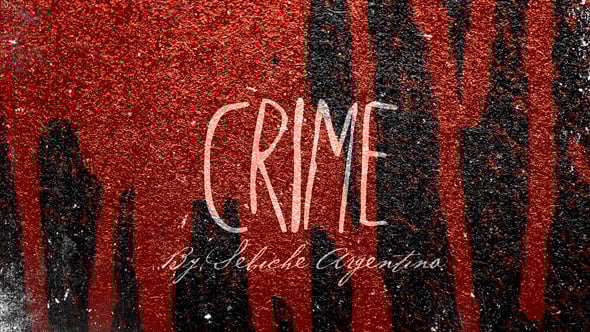
2. Retro & Period
The retro trend has absolutely dominated pop-culture over the last year, popping up everywhere from graphic design and marketing to movies and TV shows. Starting with the huge success of Stranger Things back in 2016, to the resurgence of 90’s shows such as FRIENDS and Freaks and Geeks on streaming services, and even the recent obsession with Bridgerton, there’s no denying that retro and vintage is well and truly back in vogue. Keen to take a step back in time? From 80’s cyberpunk fonts to 90’s pop culture graphics, here are some of the best throwback items on Envato Elements…
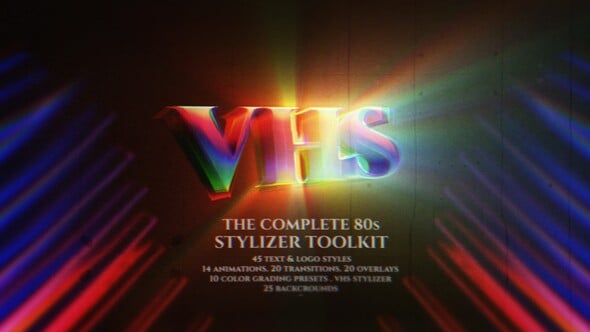
3. Sci-Fi
Since its inception in the early 1920s – when the term ‘science fiction’ was coined by one of the genre’s top advocates, Hugo Gernsback – sci-fi has remained popular. From classics such as Star Wars, The X Files, Alien and Star Trek to modern sci-fi hits Interstellar, I Am Legend, The Mandalorian and Christopher Nolan movie TENET, sci-fi is just as relevant now as it was over 100 years ago. Spanning the realms of intergalactic space travel, post-apocalyptic wastelands and alien invasions, the sci-fi genre is as vast as the universe it ponders. Want to know how to get the sci-fi vibe? Including futuristic fonts, intergalactic video templates and graphics that are out of this world, here are some of the top sci-fi items on Envato Elements…
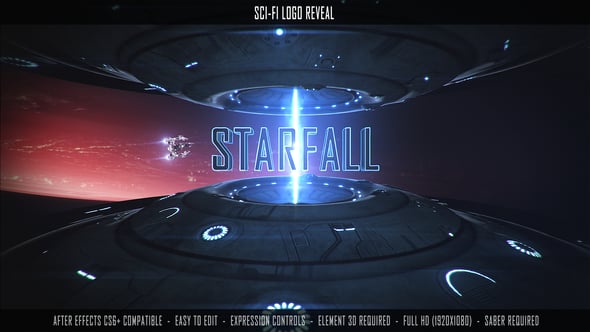
4. Modern Romance
Swoon-worthy favorites such as romantic dramas and comedies have been popular since the dawn of the big and small screen. However, due to the rise of Netflix and endless other streaming services, a new genre has blossomed – the ‘modern romance’ genre. Including the likes of Emily in Paris, To All the Boys I’ve Loved Before, Normal People and New Girl, modern romance typically focuses on the tropes of modern dating, and features arty, contemplative design. Including handwritten fonts, cinematic video templates and indie graphics, here are some of the top modern-romance inspired items on Envato Elements…
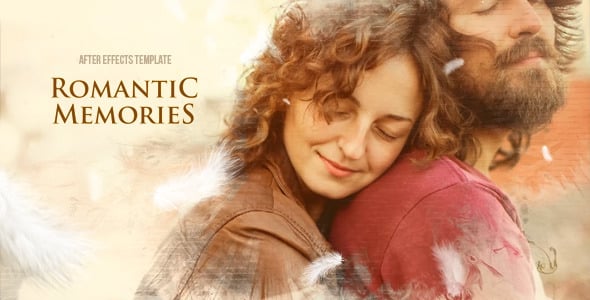
5. Horror
Since the first known horror movie The House of the Devil was created in 1898 – complete with cauldrons, animated skeletons, ghosts, transforming bats and the incarnation of the Devil – film audiences have been obsessed with horror. Whether it be blood and gore, supernatural, slasher movies or psychological thrillers, the horror genre is one that continues to evolve, spawning countless films and TV shows. Whether you prefer retro horrors like Psycho, the Exorcist and Scream, or modern horrors like Paranormal Activity, The Conjuring, IT or Get Out, our thirst for horror shows no sign of being quenched any time soon. Want to conjure a creepy horror aesthetic? Featuring frightening fonts, spooky video templates and gory graphics, here are the best horror-inspired items on Envato Elements…